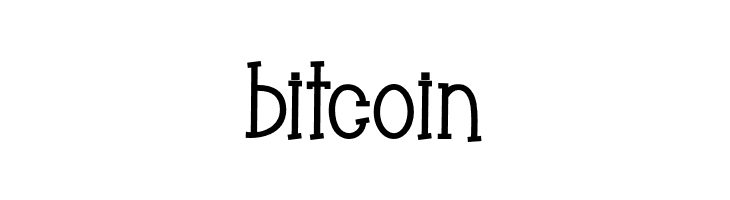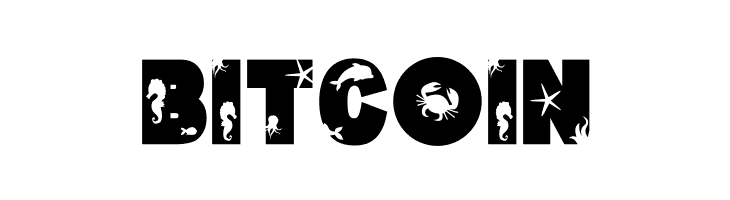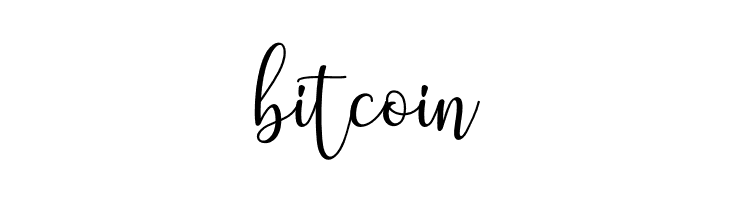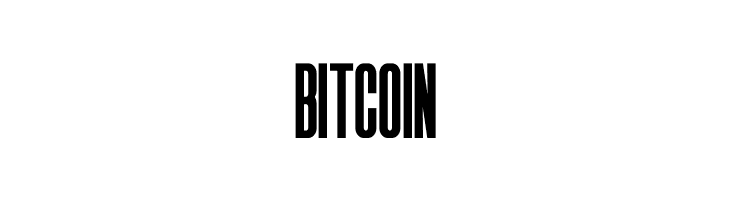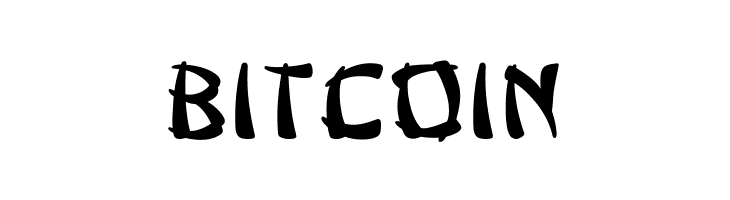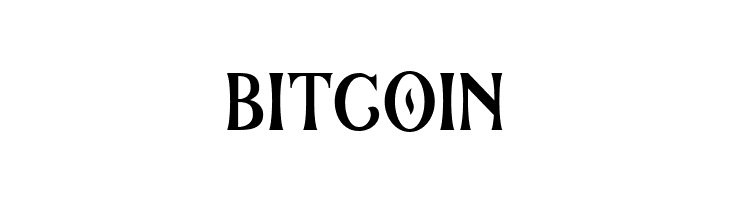
Chowes Font
A playful, segmented font with a hand-drawn, whimsical style.
Chowgant Signature Font
An elegant, cursive font with fluid, connected letters and varying line thickness.
ChowMein Font
A bold, Gothic-inspired font with sharp, angular lines and intricate detailing.
CHOXR Font
A bold, modern font with tall, narrow characters ideal for impactful headlines.
CHOXR Font
A bold, modern font with tall, narrow characters and strong visual impact.
Chozy mermaid Font
A bold, decorative font with sea-themed cutouts, perfect for creative projects.
Chozy mermaid Font
A bold, decorative font with mermaid-themed motifs and a strong visual impact.
Chratos Font
A bold, jagged font with sharp, thorn-like edges and a dynamic, aggressive style.
Chratos Font
A bold, jagged font with sharp, thorn-like edges for a fierce look.
ChremselSerif-Bold Font
A bold, structured serif font with strong vertical lines and subtle curves.
ChremselSerif-Regular Font
A modern serif font with elegant curves and sharp serifs.
CHRIS BOX Font
A festive, gift box-themed font with bold, geometric characters and ribbon accents.
Chris's Handwriting Font
A fluid, handwritten-style font with an artistic and personal touch.
Chrisbellin Font
A lively and expressive handwritten font with elegant flourishes.
Chrisbellin Font
A lively, expressive handwritten script font with fluid strokes.
Chriselda Font
An elegant script font with flowing, cursive letters and a sophisticated flair.
CHRISmas3 Font
A festive, decorative font with a pine needle texture, ideal for holiday themes.
Chrismast Candy Font
A bold, candy-striped decorative font perfect for festive designs.
ChrisMaster Regular Font
An elegant, flowing script font with ornate uppercase and connected lowercase letters.
Chrispy Font